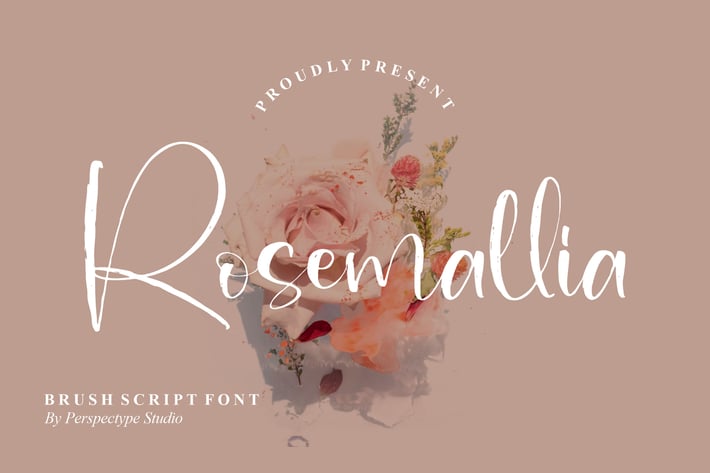
Rosemallia Brush Script Font
Rosemallia Brush Script Font is a bold and artistic handwritten typeface with textured brush strokes that bring a natural, hand-painted feel. Its expressive style is perfect for projects that need creativity, warmth, and a touch of elegance.
+ Brush script style with textured strokes
+ Natural handwritten feel for authentic designs
+ Branding & logo design
+ Food & lifestyle packaging
+ Posters & promotional materials
+ Greeting cards & invitations
+ Social media graphics
Bring raw beauty and handmade charm to your projects with Rosemallia – the brush script font that speaks with personality.